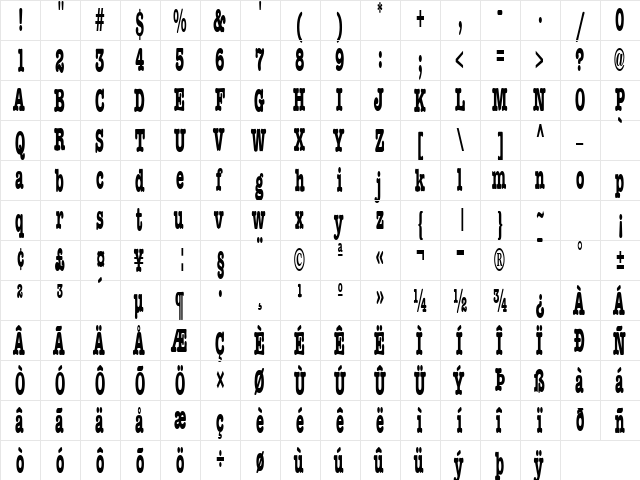
Bocci Regular
Design Context for Bocci Typeface
Bocci is a composed and adaptable typeface that performs quietly and consistently across a wide range of design contexts.